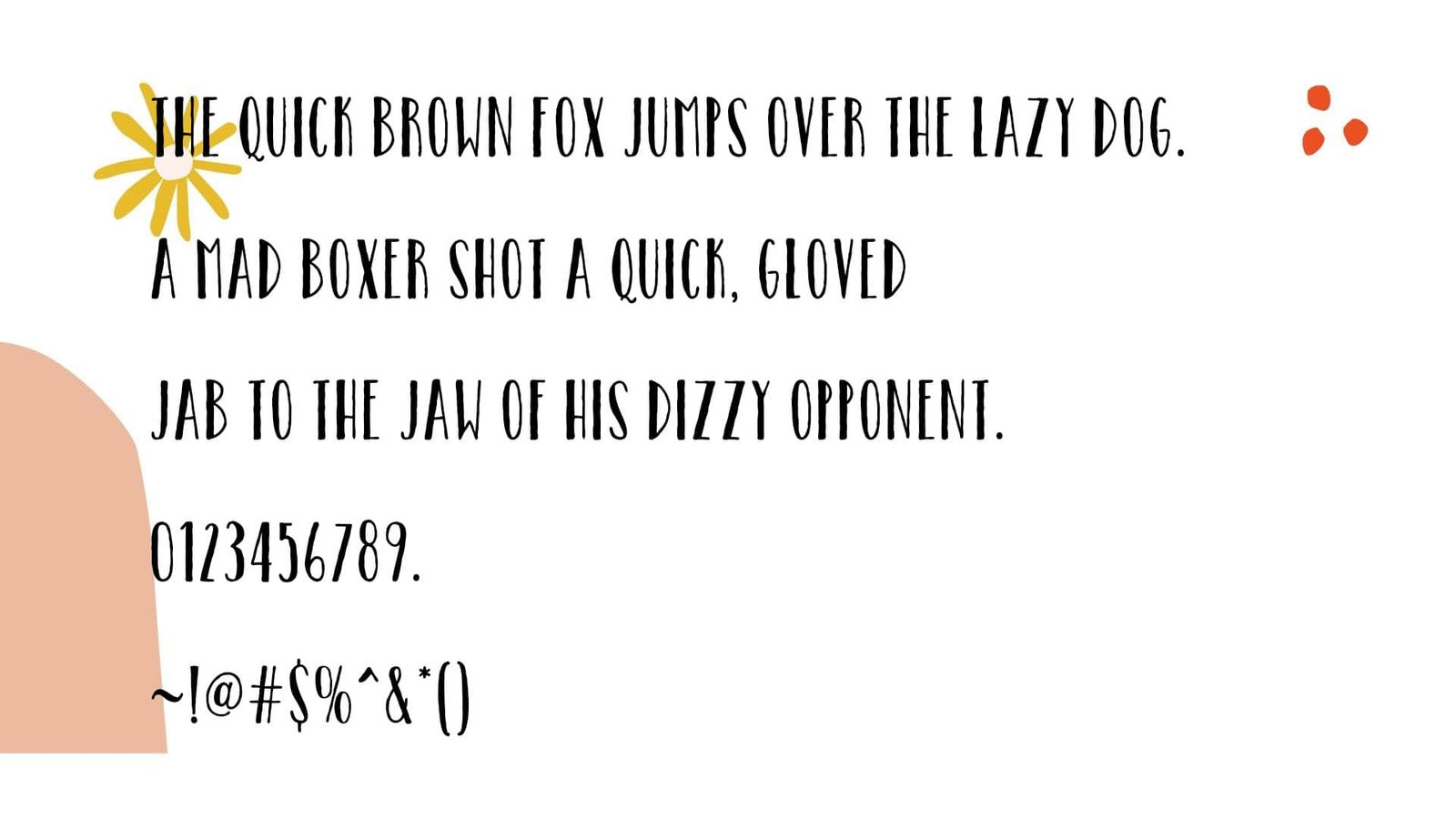
Catalina Avalon Sans font is one of the classic display typefaces. Kimmy Kirkwood created this beautiful font in 2014. This font has an outstanding look. The designer of this font worked very hard to make it a good typeface.
Designers from all over the world utilize this font in different types of design projects. Designers also pair this sans light beautiful font with some other font to make a design more attractive. This classic font is also used in pairing with Droid Serif Font.
Catalina Avalon Sans Font Family
| Name | Catalina Avalon Sans Font |
| Designer | Kimmy Kirkwood |
| Type | Display |